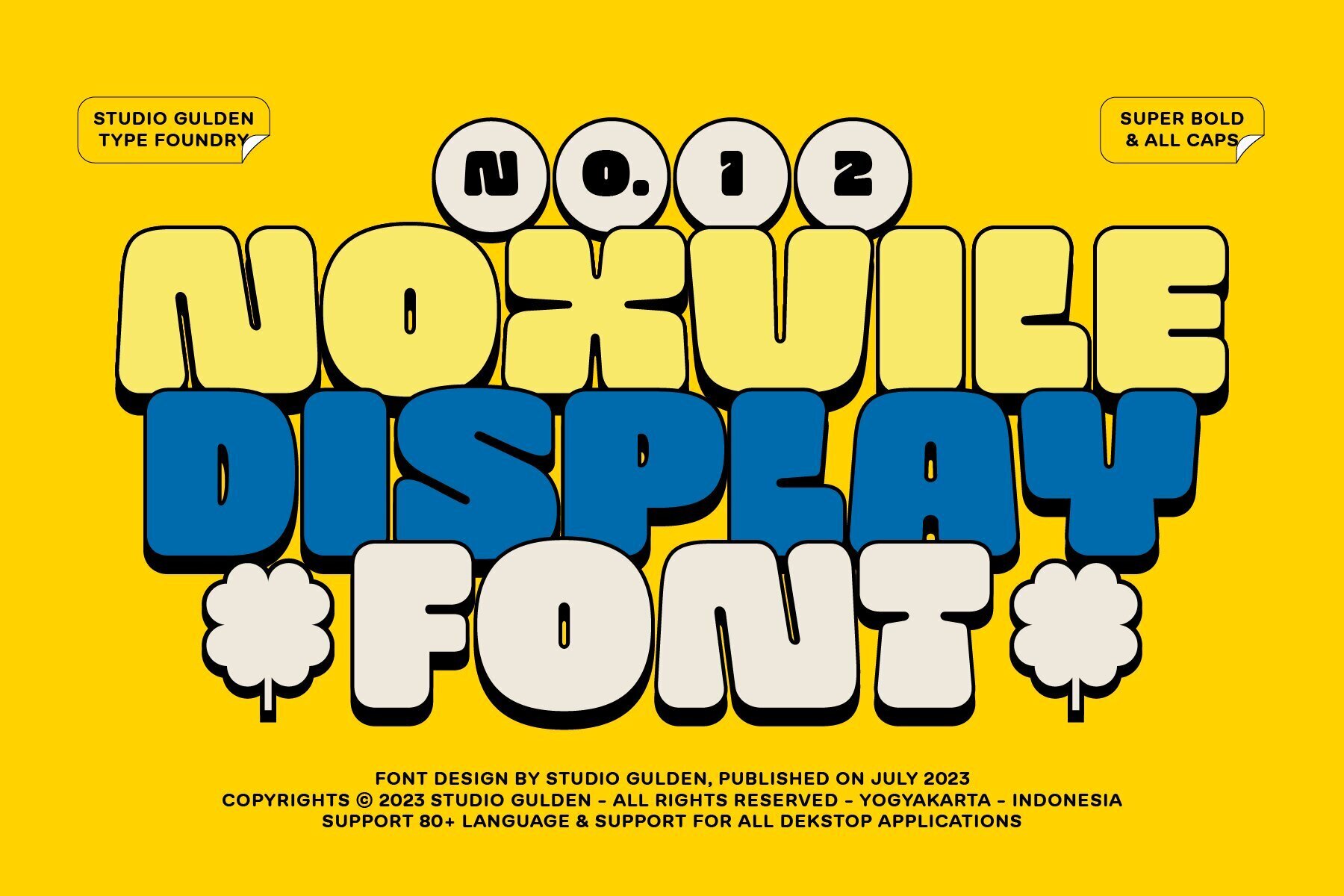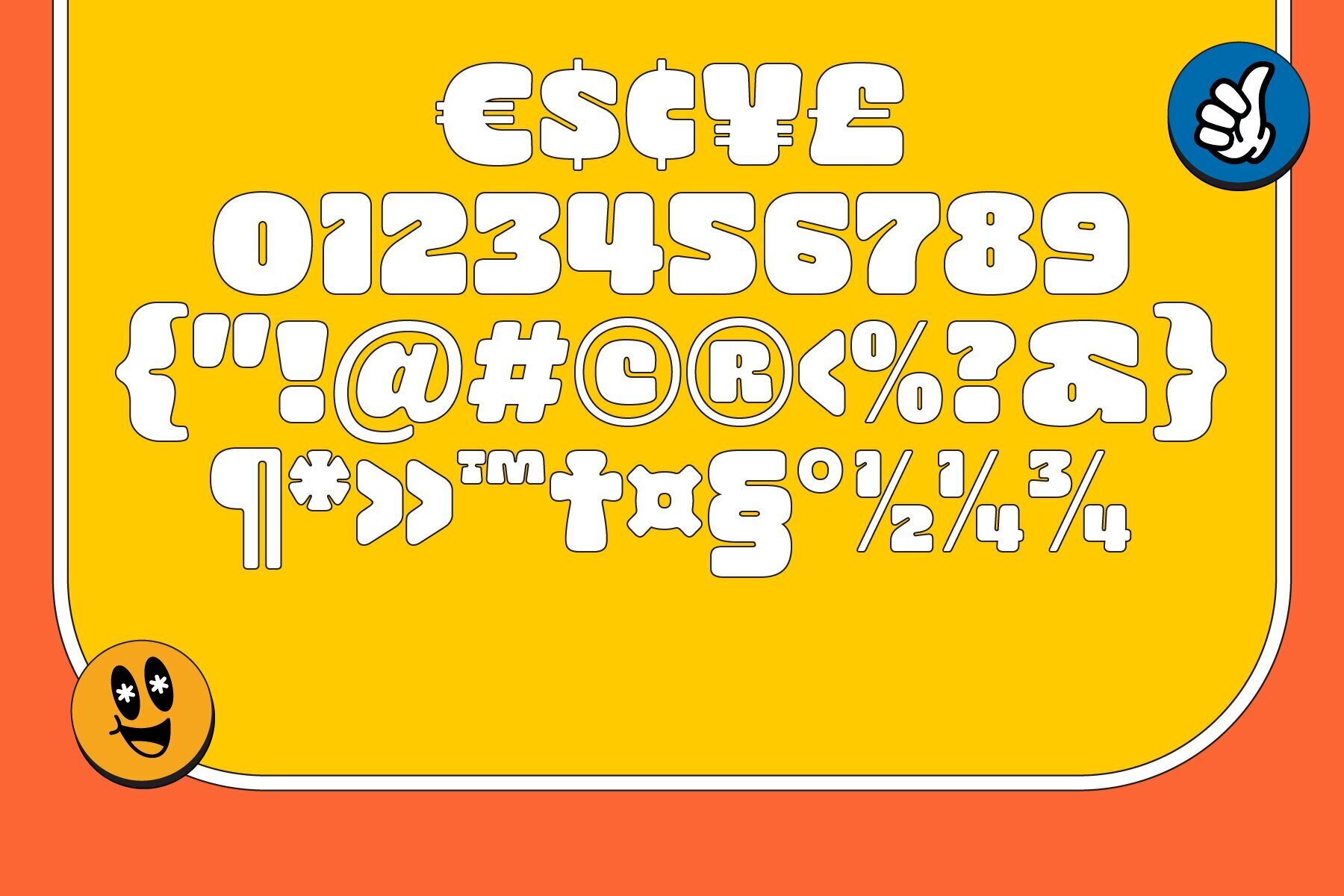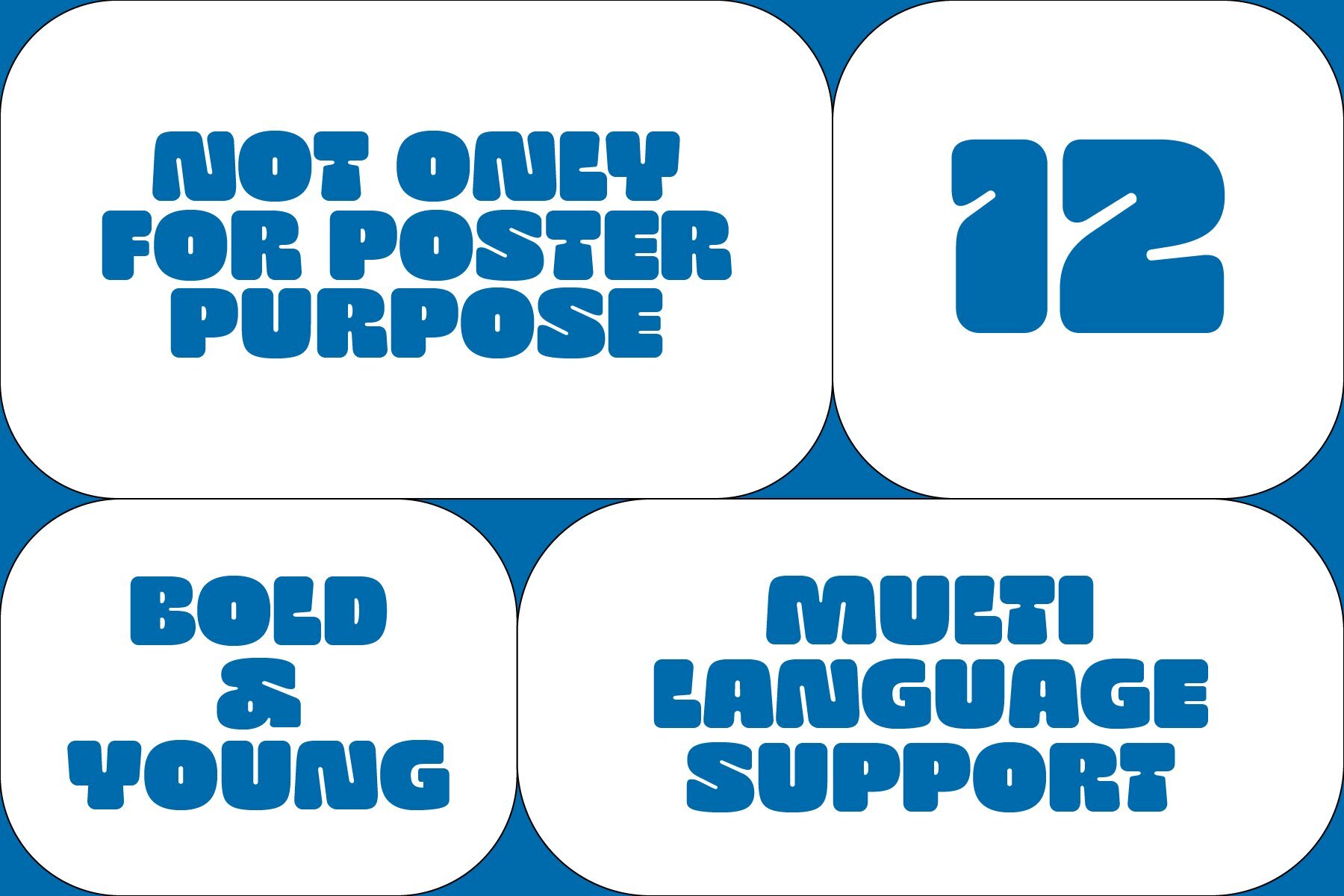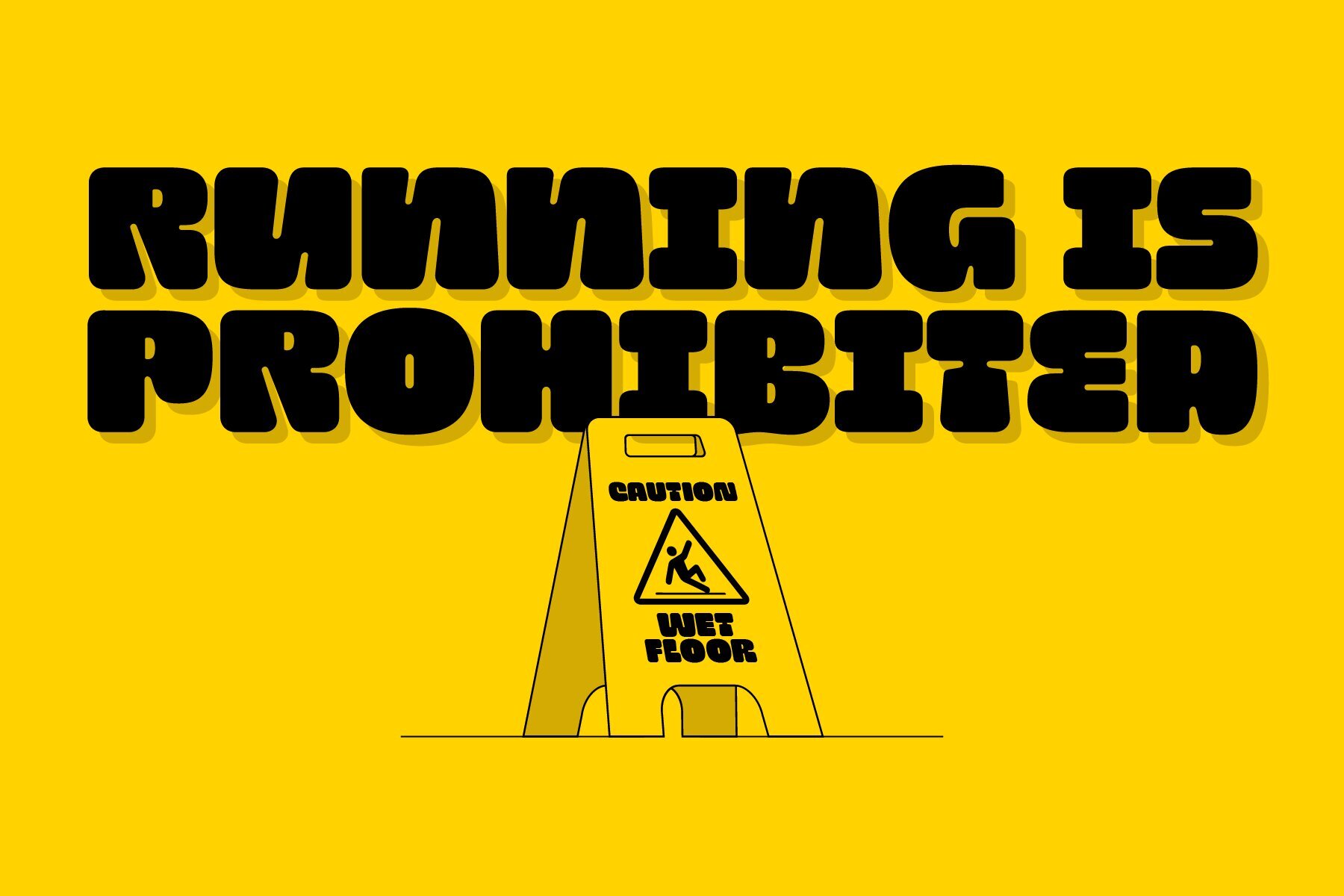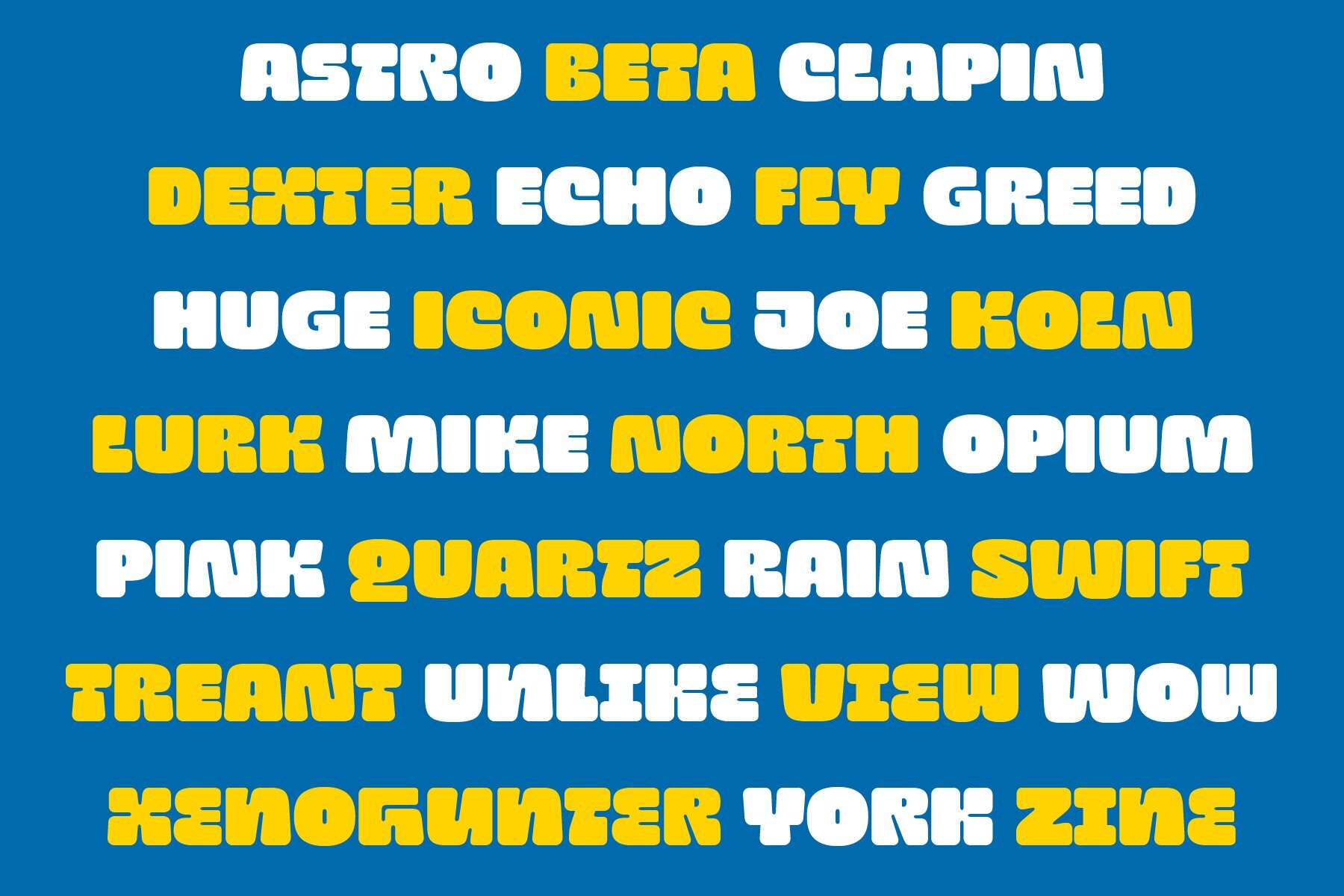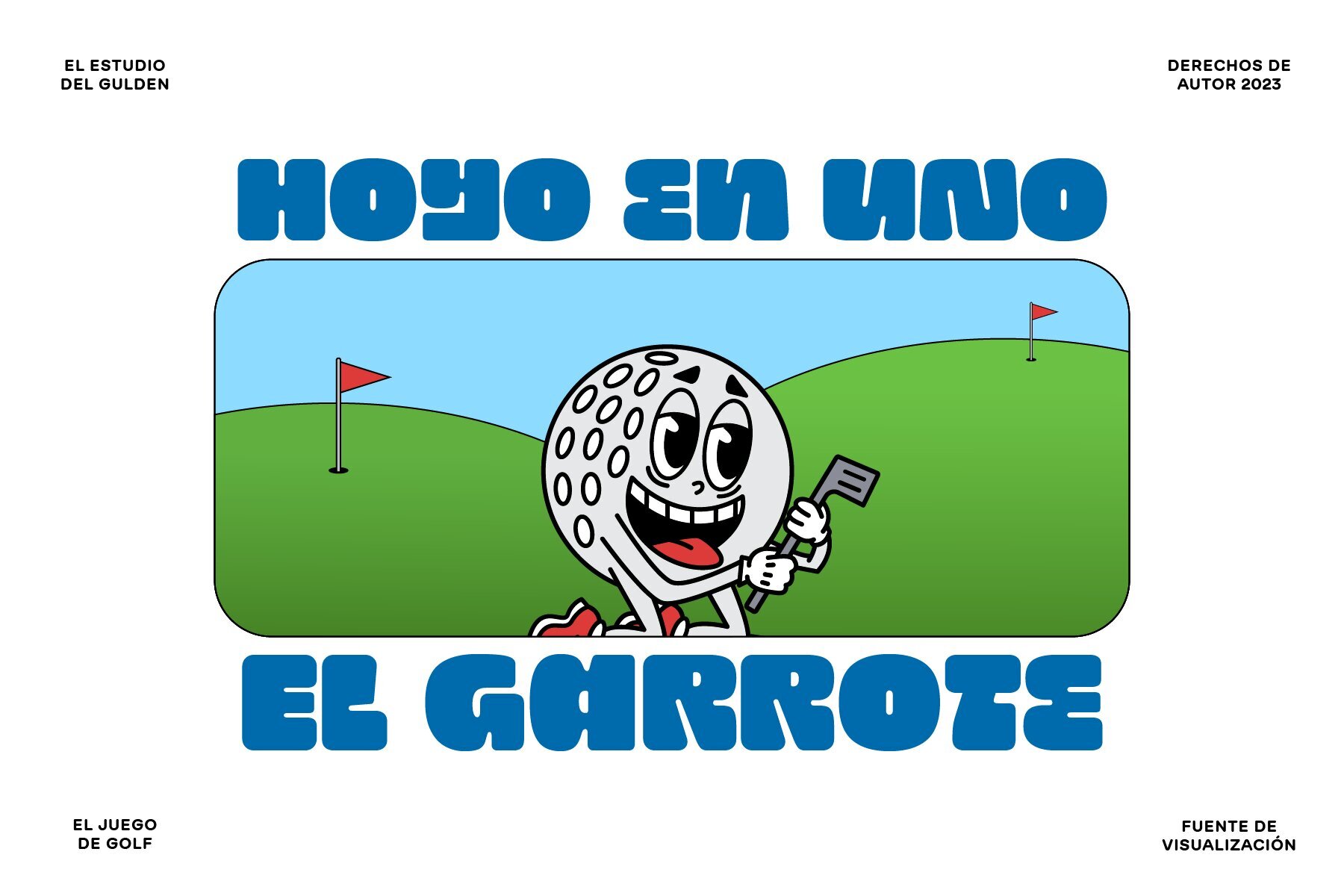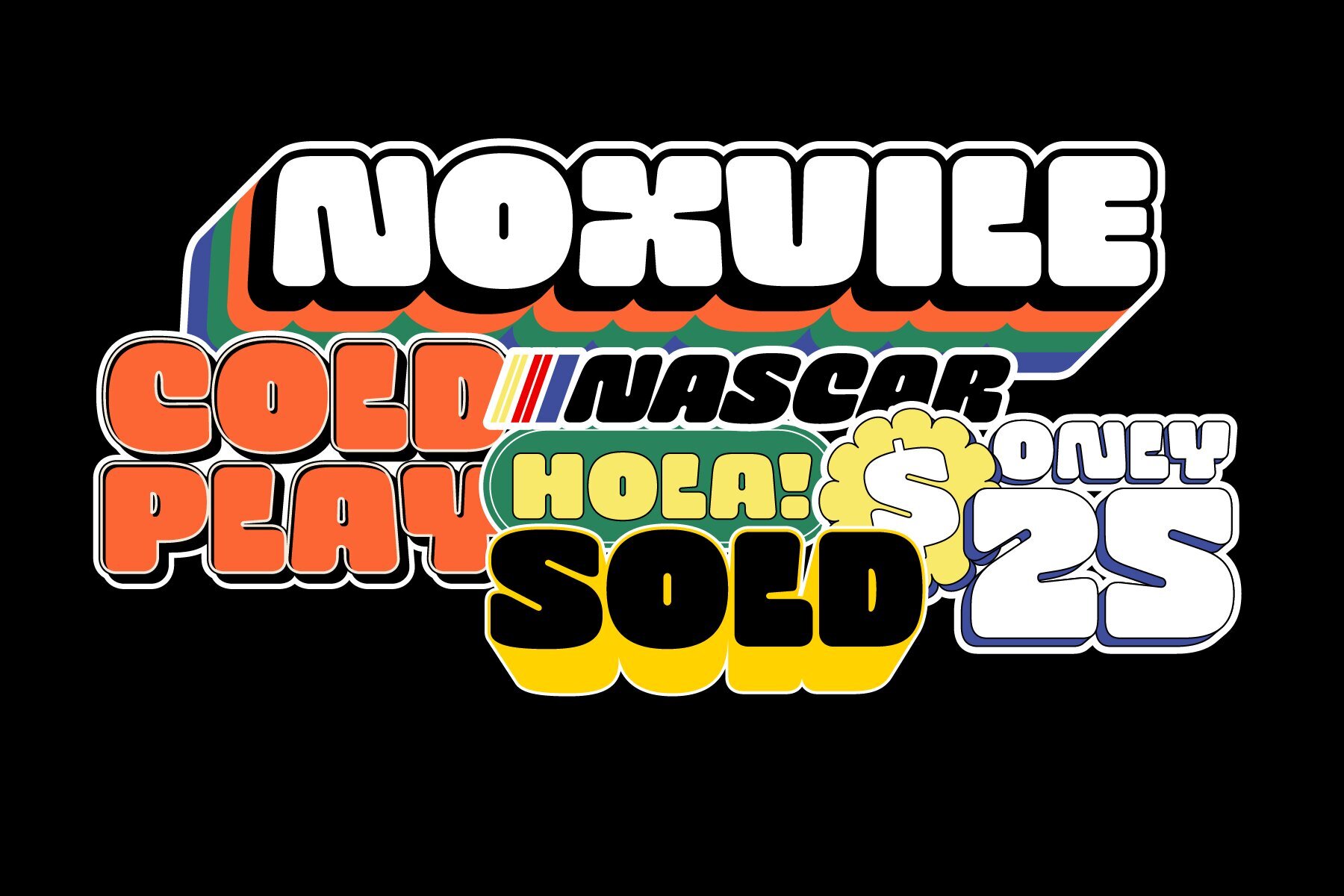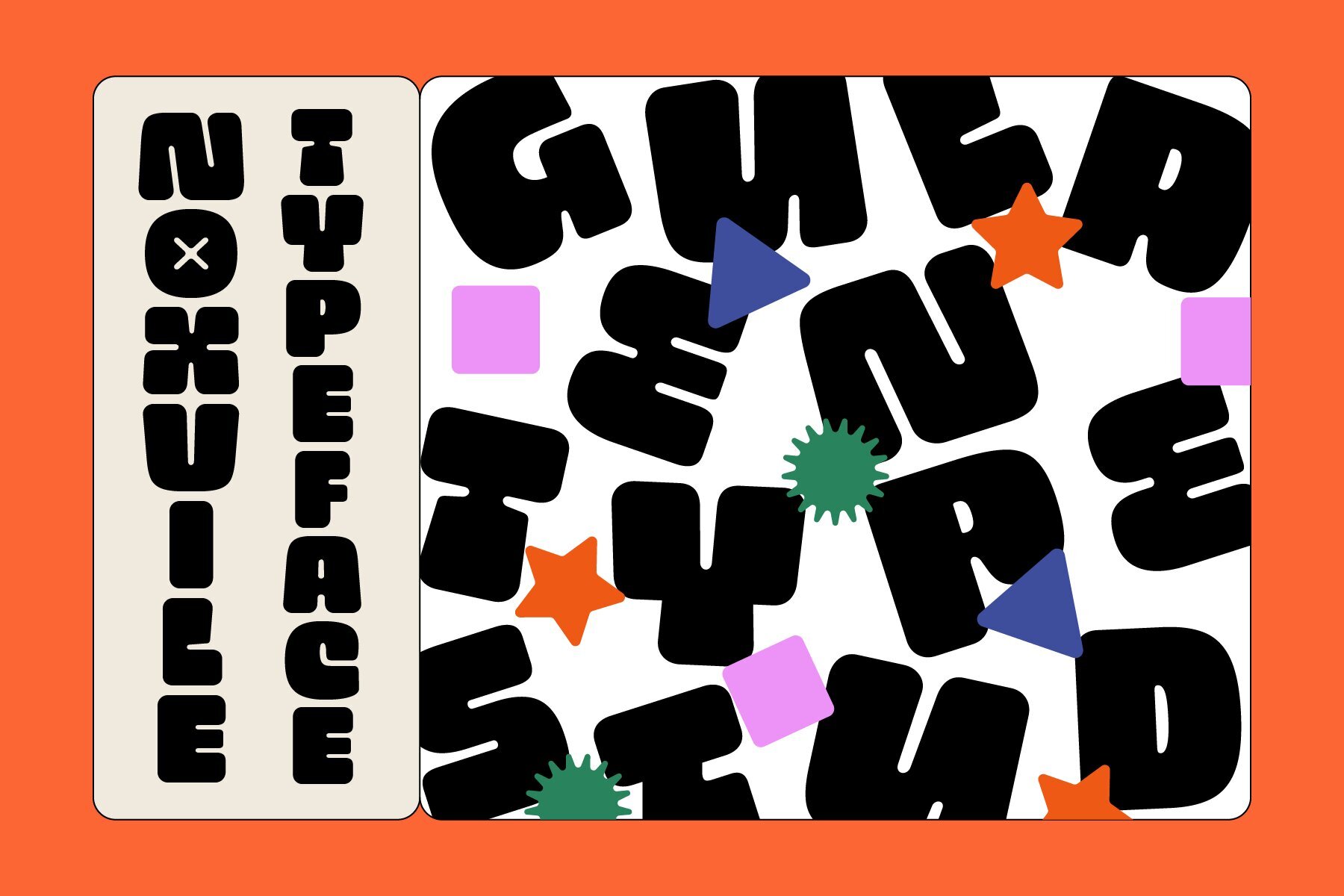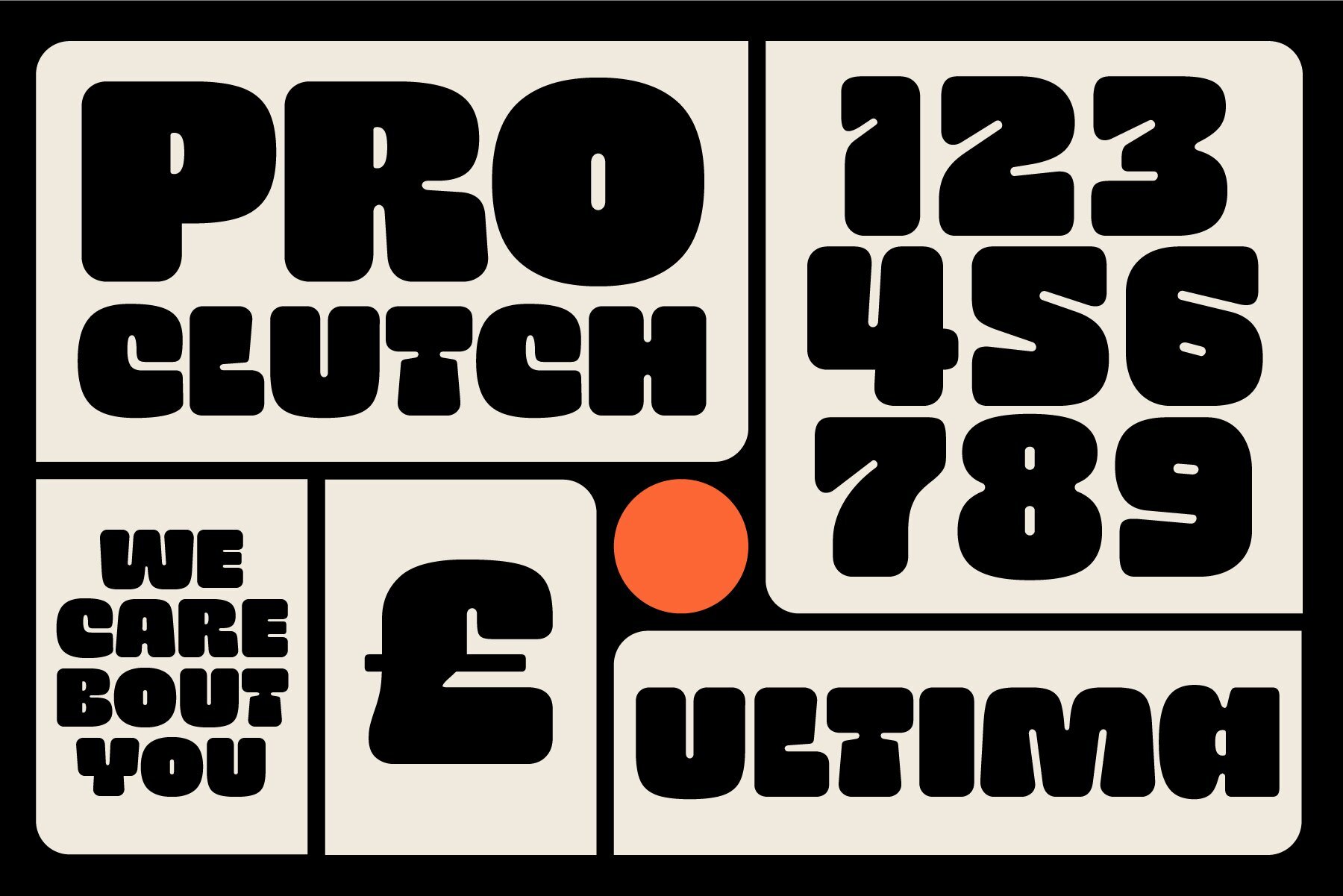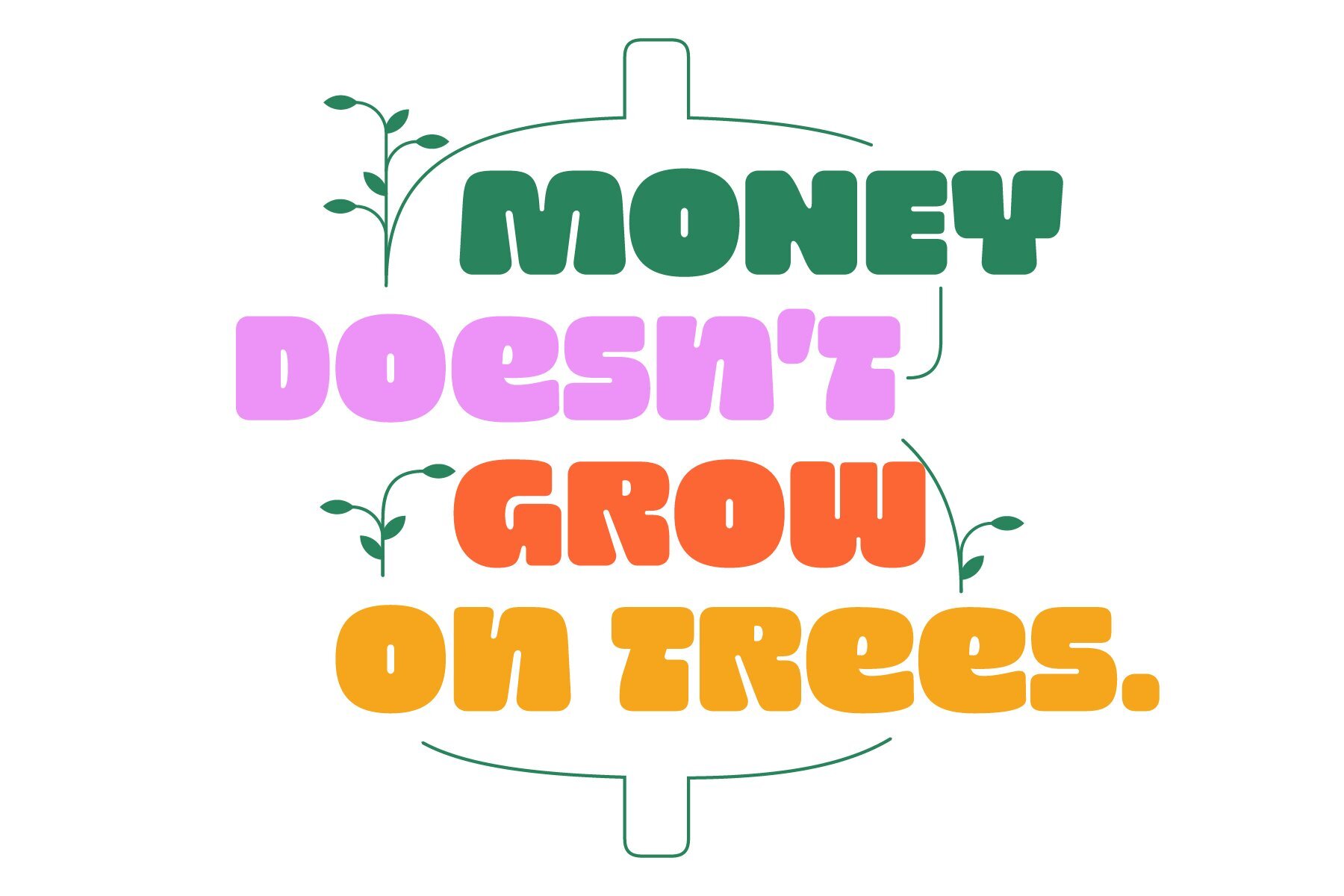
SG Noxvile Font
SG Noxville Regular
Unleash the power of typography with Noxvile, a revolutionary font that demands attention and exudes confidence. Crafted with precision and designed to make a statement, Noxvile brings a whole new level of intensity to your words. Ignite your creativity and let your message roar with Noxvile's super bold style and captivating all-caps specimen. Whether you're designing eye-catching headlines, striking logos, or empowering social media posts, this font will make your words leap off the page and leave a lasting impression. Stand tall among the rest with Noxvile's commanding presence. Embrace its sharp edges, powerful curves, and unparalleled strength to create a visual experience that is truly unforgettable. Let your message shine brighter than ever before, cutting through the noise and leaving your audience captivated.